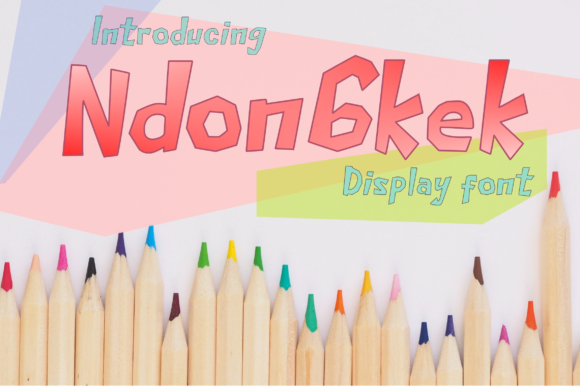
Are you looking for a font that will make your designs stand out? Look no further than Ndongkek Font, the captivating display font that embodies boldness and fun. With its thick and prominent characters, Ndongkek commands attention and leaves a lasting impression, making it the perfect choice for creating logos, branding, social media posts, and unique DIY projects.
Ndongkek Font is not just a font; it's an expression of your creativity and personality. Its bold and confident strokes convey a sense of strength and determination, while its playful and energetic curves add a touch of whimsy and charm. Whether you're a seasoned designer or just starting, Ndongkek Font is the perfect tool to bring your visions to life.
Imagine your designs adorned with Ndongkek Font, captivating your audience with its striking presence. Your logos will radiate power and memorability, your branding will exude professionalism and uniqueness, and your social media posts will burst with personality and engagement. Ndongkek Font is the font that transforms your ideas into captivating realities, leaving an unforgettable mark on your audience.
Unleash your creativity with Ndongkek Font and embark on a design journey like never before. Its versatility knows no bounds, effortlessly adapting to a wide range of projects, from sleek and modern designs to playful and whimsical creations. With Ndongkek Font, your designs will speak volumes, conveying messages of boldness, confidence, and individuality.
As a display font, Ndongkek Font excels in capturing attention and making a lasting impression. Its bold strokes and playful curves create a visual impact that demands notice, making your designs stand out in a sea of mediocrity. Whether you're designing posters, flyers, website headers, or eye-catching social media graphics, Ndongkek Font is the key to creating designs that resonate with your audience.
Experience the Ndongkek Font difference today and see how it transforms your designs into captivating masterpieces. Its bold and confident strokes will leave an unforgettable impression, while its playful and energetic curves will add a touch of whimsy and charm. Ndongkek Font is the font that elevates your creativity and makes your designs shine. Download now and unlock the boundless potential of Ndongkek Font!